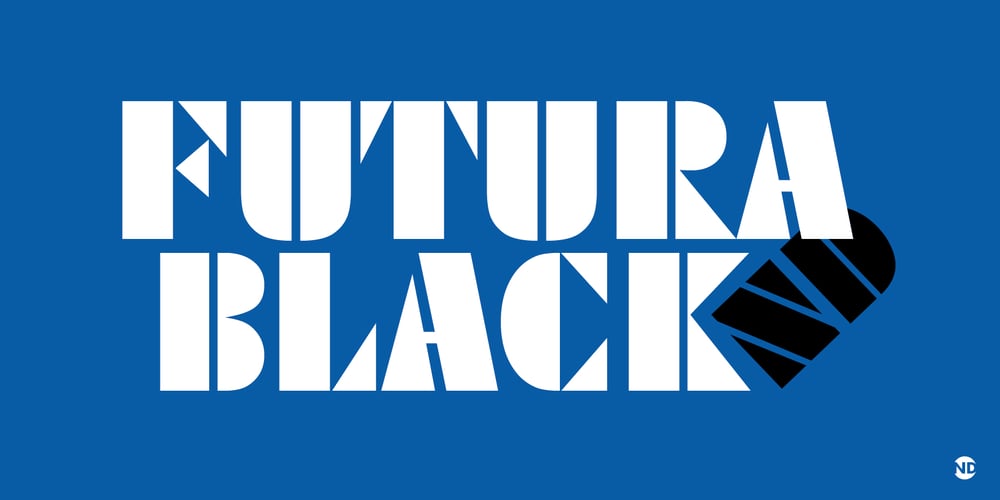
Futura ND Black
Futura ND Black font
Futura ND Black Font Family was designed by Paul Renner, Marie-Thérèse Koreman and published by Neufville Digital. Futura ND Black contains 1 styles and family package options. Designed by Paul Renner and published in 1929. It shows an alternative method of giving maximum thickness to a font by being designed to resemble the use of a stencil. It was a very fashionable typeface during the avant-garde period. It is still an excellent typeface for display use.Futura is a Trademark of BauerTypes SL